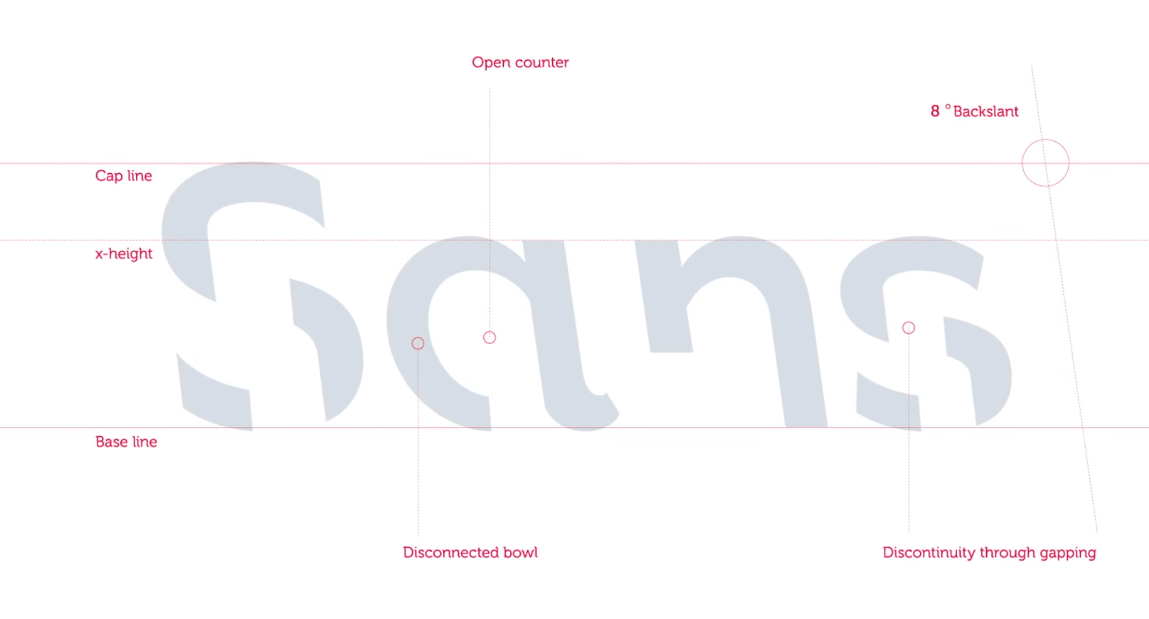
Best Font For Memory Retention . Researchers found that sweet spot by bringing more than 100 students to the lab for a memory test using fonts that were broken to various. The study identified a unique relationship between disfluency and memory retention, suggesting that fonts that are somewhat challenging to read, such as haettenschweiler,. Researchers at rmit combine psychological theory and typography to develop a new computer font they say helps to improve retention of written information. A new font released by rmit could help people remember more of what they read as thousands of students begin to study for exams. To get there, researchers tested various fonts on 400 students before they discovered the one that. The key to sans forgetica was reaching the middle ground. Researchers and academics from different.
Researchers and academics from different. Researchers found that sweet spot by bringing more than 100 students to the lab for a memory test using fonts that were broken to various. The key to sans forgetica was reaching the middle ground. A new font released by rmit could help people remember more of what they read as thousands of students begin to study for exams. Researchers at rmit combine psychological theory and typography to develop a new computer font they say helps to improve retention of written information. To get there, researchers tested various fonts on 400 students before they discovered the one that. The study identified a unique relationship between disfluency and memory retention, suggesting that fonts that are somewhat challenging to read, such as haettenschweiler,.
Best Font For Memory Retention The key to sans forgetica was reaching the middle ground. A new font released by rmit could help people remember more of what they read as thousands of students begin to study for exams. Researchers and academics from different. The key to sans forgetica was reaching the middle ground. Researchers found that sweet spot by bringing more than 100 students to the lab for a memory test using fonts that were broken to various. The study identified a unique relationship between disfluency and memory retention, suggesting that fonts that are somewhat challenging to read, such as haettenschweiler,. Researchers at rmit combine psychological theory and typography to develop a new computer font they say helps to improve retention of written information. To get there, researchers tested various fonts on 400 students before they discovered the one that.
Font Psychology Here's Everything You Need to Know About Fonts Best Font For Memory Retention The key to sans forgetica was reaching the middle ground. Researchers at rmit combine psychological theory and typography to develop a new computer font they say helps to improve retention of written information. Researchers and academics from different. Researchers found that sweet spot by bringing more than 100 students to the lab for a memory test using fonts that were. Best Font For Memory Retention.
Retention Font Download Free Font Best Font For Memory Retention To get there, researchers tested various fonts on 400 students before they discovered the one that. The key to sans forgetica was reaching the middle ground. Researchers and academics from different. Researchers found that sweet spot by bringing more than 100 students to the lab for a memory test using fonts that were broken to various. The study identified a. Best Font For Memory Retention.
Retention Font 1001 Free Fonts Best Font For Memory Retention A new font released by rmit could help people remember more of what they read as thousands of students begin to study for exams. To get there, researchers tested various fonts on 400 students before they discovered the one that. Researchers found that sweet spot by bringing more than 100 students to the lab for a memory test using fonts. Best Font For Memory Retention.
Retention Font 1001 Free Fonts Best Font For Memory Retention The study identified a unique relationship between disfluency and memory retention, suggesting that fonts that are somewhat challenging to read, such as haettenschweiler,. Researchers and academics from different. A new font released by rmit could help people remember more of what they read as thousands of students begin to study for exams. Researchers at rmit combine psychological theory and typography. Best Font For Memory Retention.
Retention Script Demo Font · 1001 Fonts Best Font For Memory Retention Researchers found that sweet spot by bringing more than 100 students to the lab for a memory test using fonts that were broken to various. The study identified a unique relationship between disfluency and memory retention, suggesting that fonts that are somewhat challenging to read, such as haettenschweiler,. Researchers and academics from different. Researchers at rmit combine psychological theory and. Best Font For Memory Retention.
Memory Retention Font Developed Using Cognitive Psychology Best Font For Memory Retention Researchers at rmit combine psychological theory and typography to develop a new computer font they say helps to improve retention of written information. The key to sans forgetica was reaching the middle ground. Researchers and academics from different. A new font released by rmit could help people remember more of what they read as thousands of students begin to study. Best Font For Memory Retention.
Memory Font Free Fonts Best Font For Memory Retention Researchers at rmit combine psychological theory and typography to develop a new computer font they say helps to improve retention of written information. Researchers found that sweet spot by bringing more than 100 students to the lab for a memory test using fonts that were broken to various. The study identified a unique relationship between disfluency and memory retention, suggesting. Best Font For Memory Retention.
Memory Of 2018 Font 1001 Free Fonts Best Font For Memory Retention A new font released by rmit could help people remember more of what they read as thousands of students begin to study for exams. To get there, researchers tested various fonts on 400 students before they discovered the one that. The study identified a unique relationship between disfluency and memory retention, suggesting that fonts that are somewhat challenging to read,. Best Font For Memory Retention.